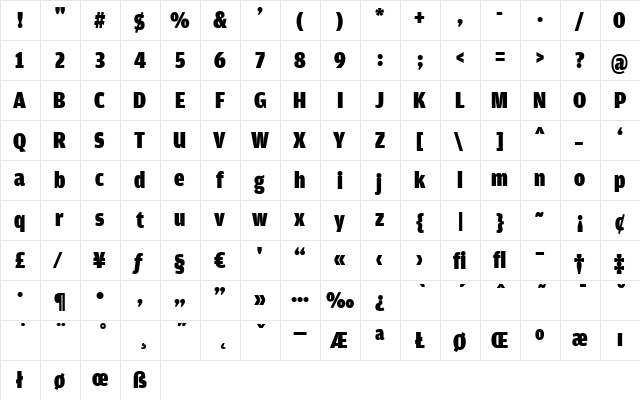
AmplitudeCond-Ultra Regular
| Foundry | The Font Bureau, Inc |
| Designer | Christian Schwartz |
Design Context for AmplitudeCond-Ultra Typeface
AmplitudeCond-Ultra takes a measured approach to typography — its balanced proportions and neutral character make it a reliable workhorse for both digital and print work. The condensed width makes it efficient for tight spaces without sacrificing legibility.